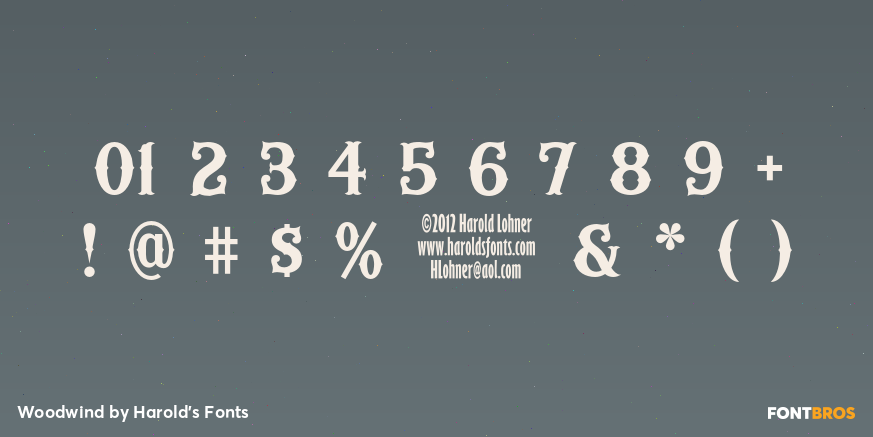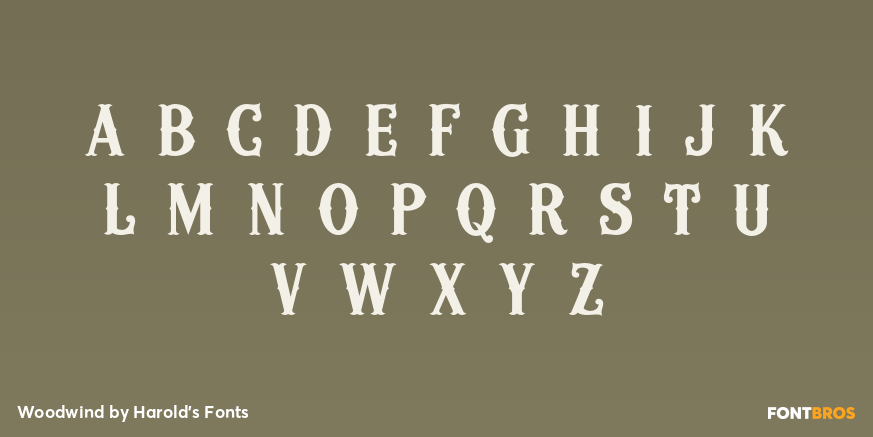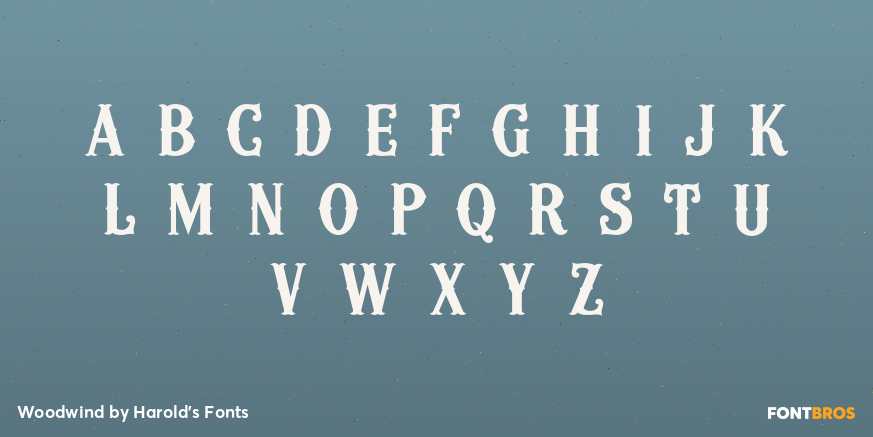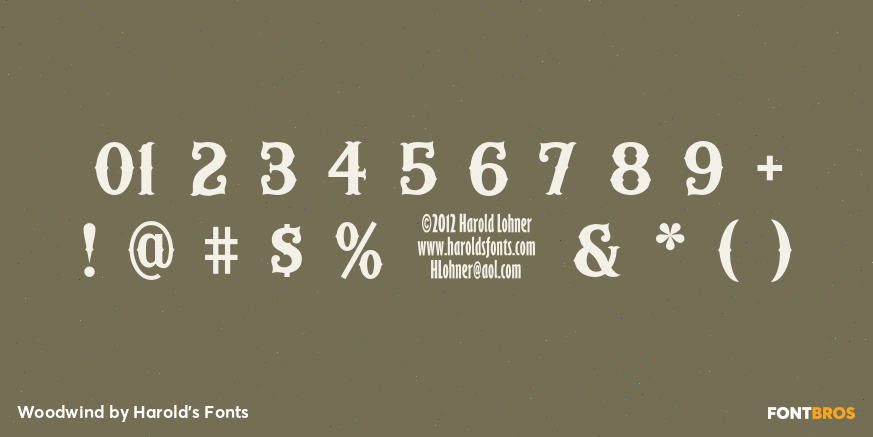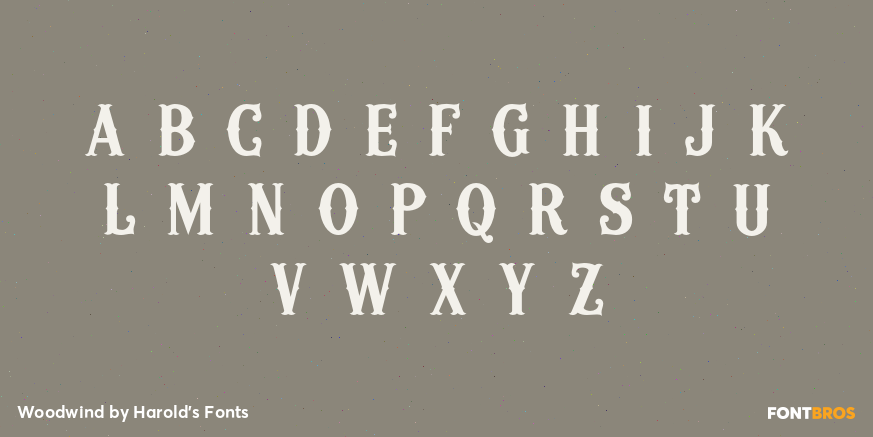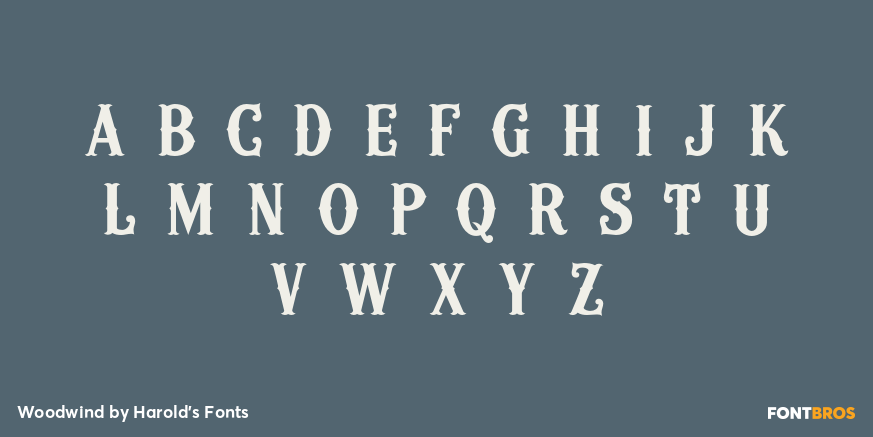
Woodwind
Font Family by Harold's Fonts
Woodwind was inspired by the opening titles of the classic 1939 film "Gone With The Wind." It's an ornate 19th-century style font that can suggest the Old South as well as Western Saloon or Circus Wagon. In the film, the words "blow" from right to left leaving trails; I've created Regular, West and East "moving" fonts.